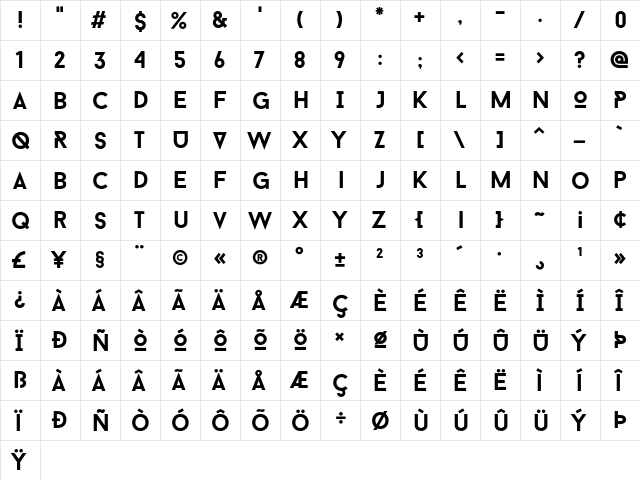
Baron Neue Bold
| Foundry | Frank Hemmekam |
| Designer | Frank Hemmekam |
Design Context for Baron Neue Typeface
Baron Neue takes a measured approach to typography — its balanced proportions and neutral character make it a reliable workhorse for both digital and print work. Its bold stroke weight gives it real presence on the page.